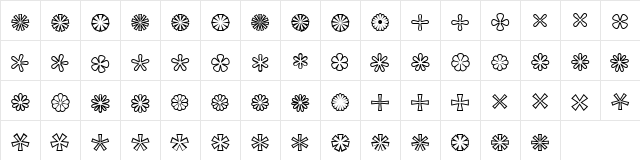
Asterisp Delta Regular
Design Context for Asterisp Delta
Asterisp Delta is a composed and adaptable typeface that performs quietly and consistently across a wide range of design contexts.
Pro Tip: Use Asterisp Delta in both headline and body roles to test its range before committing to a single application.